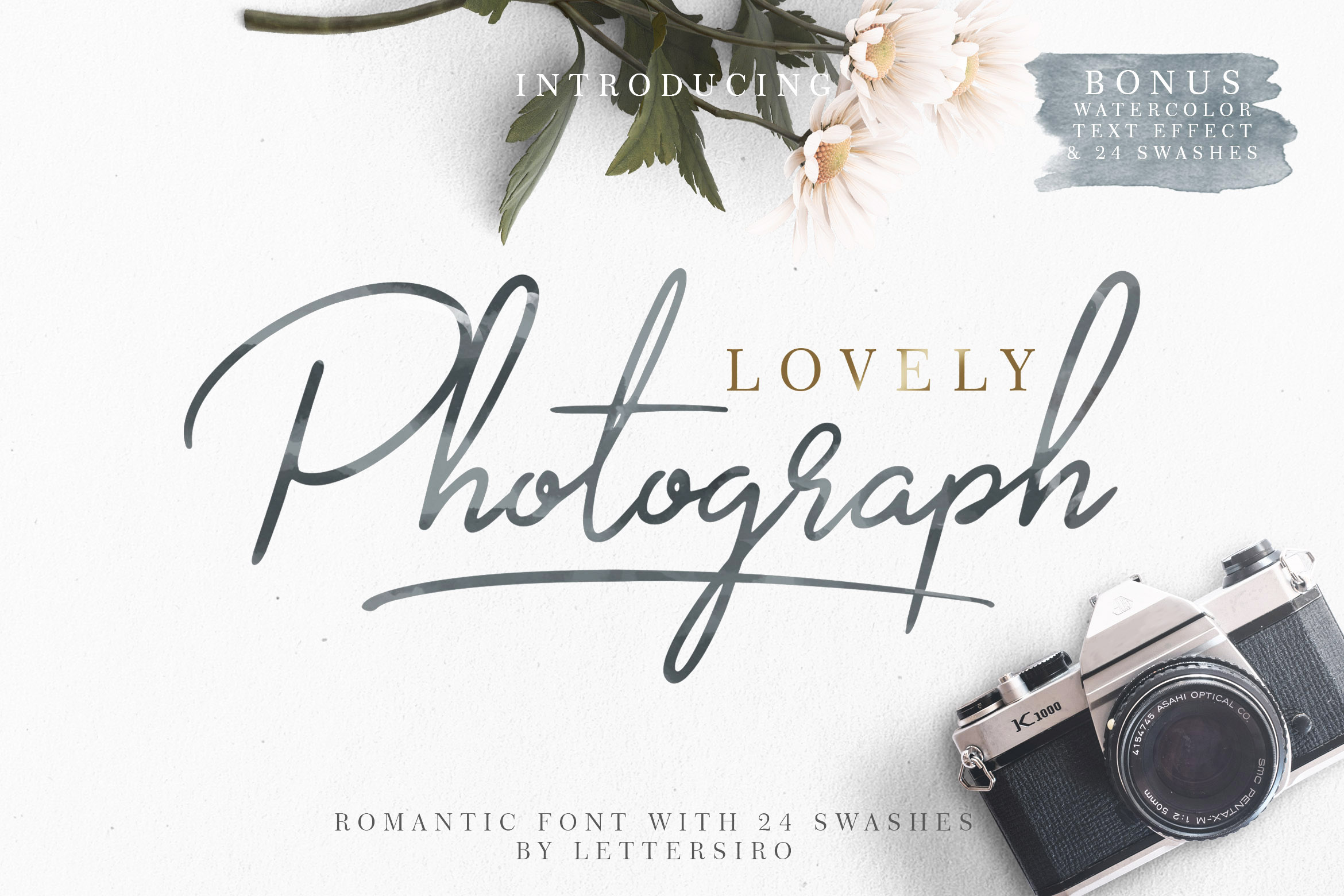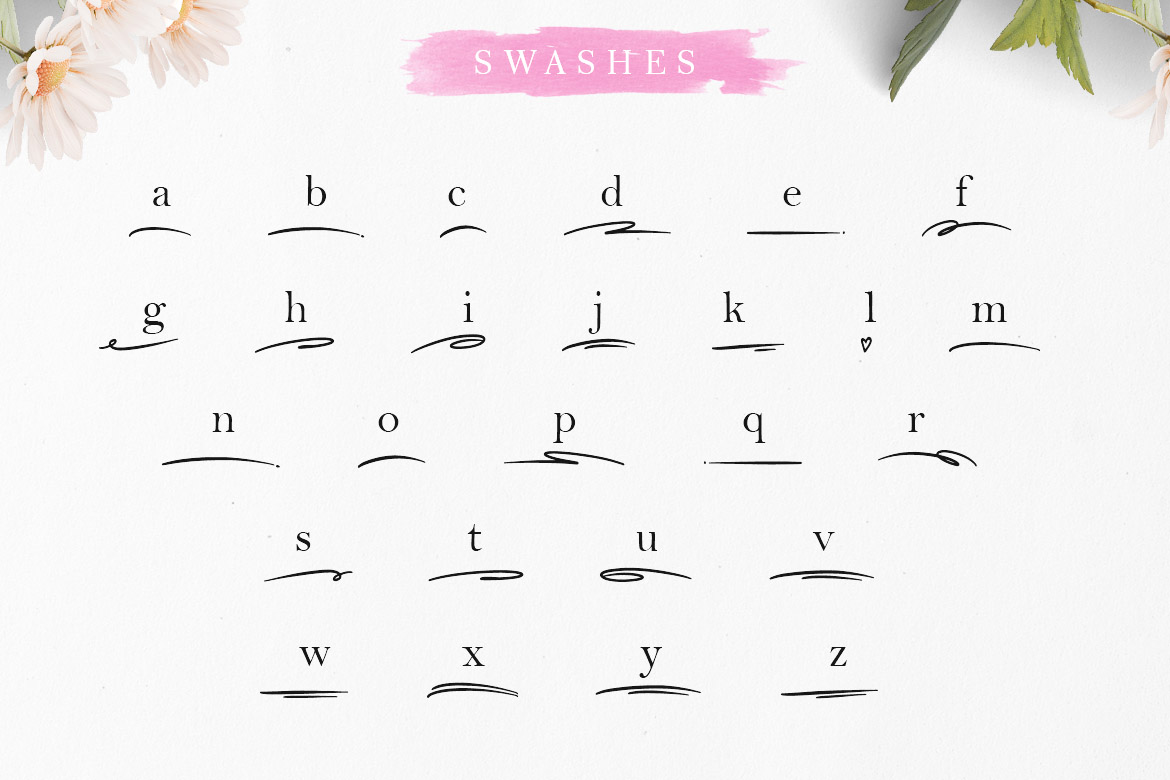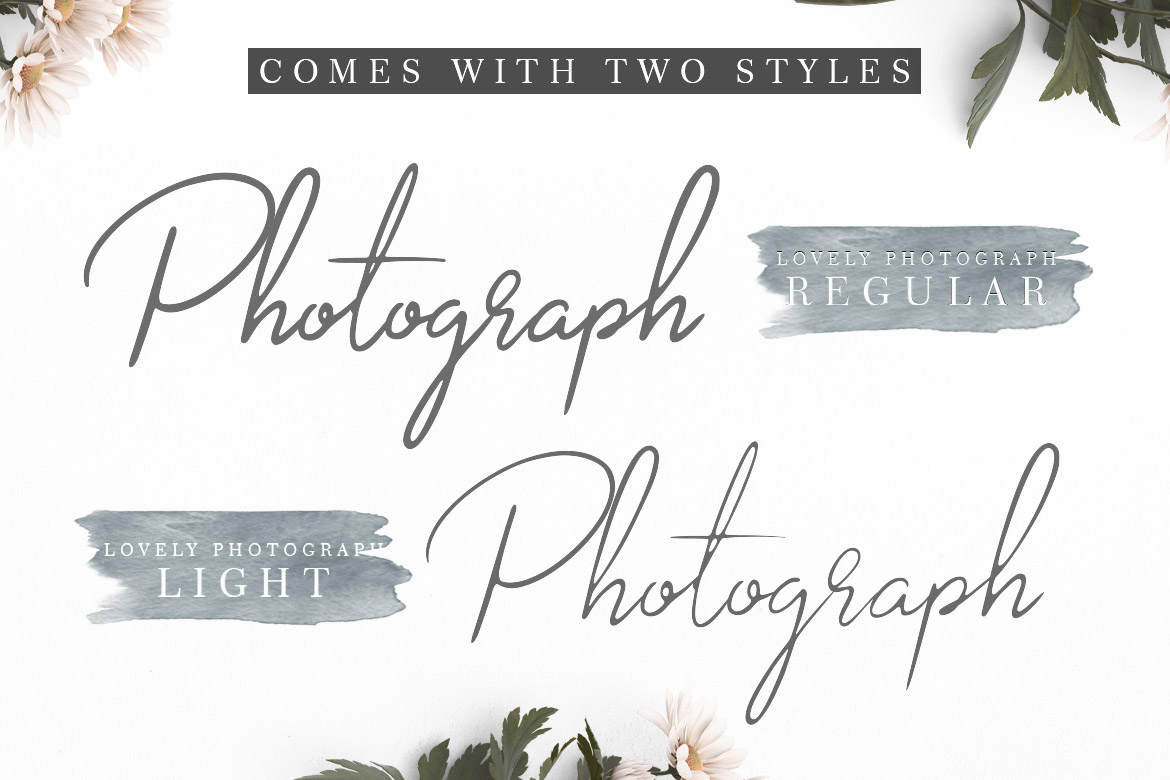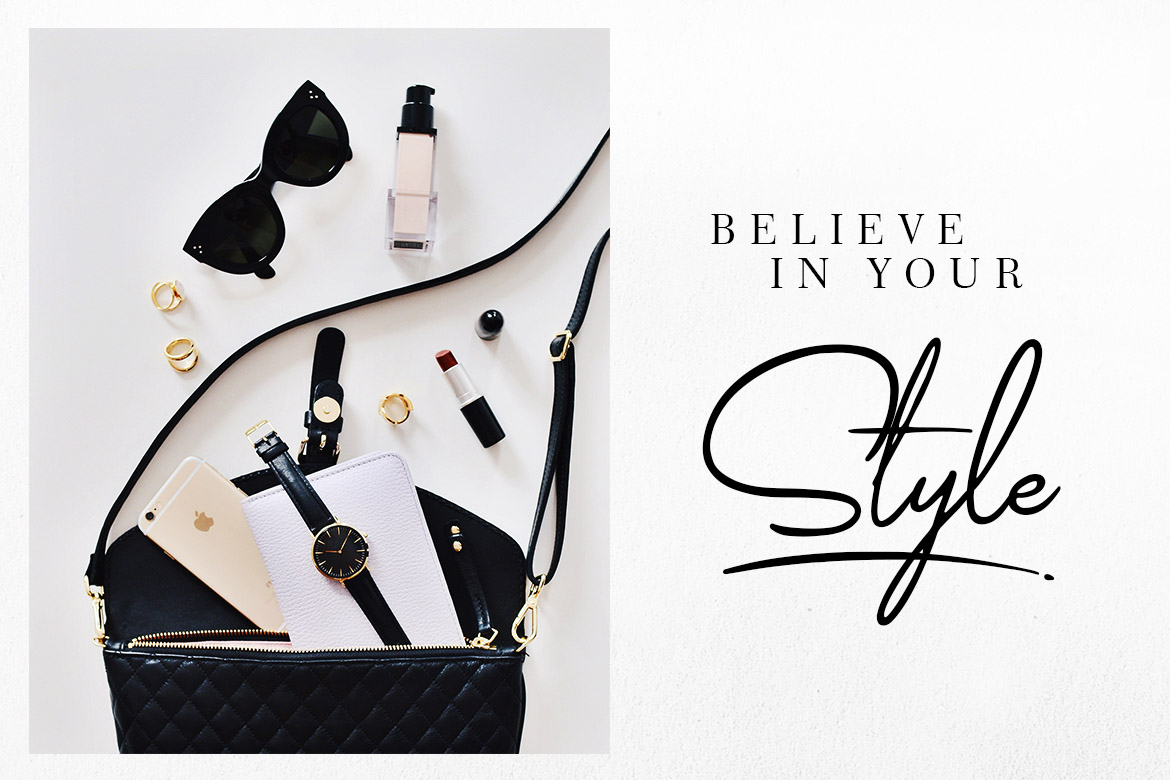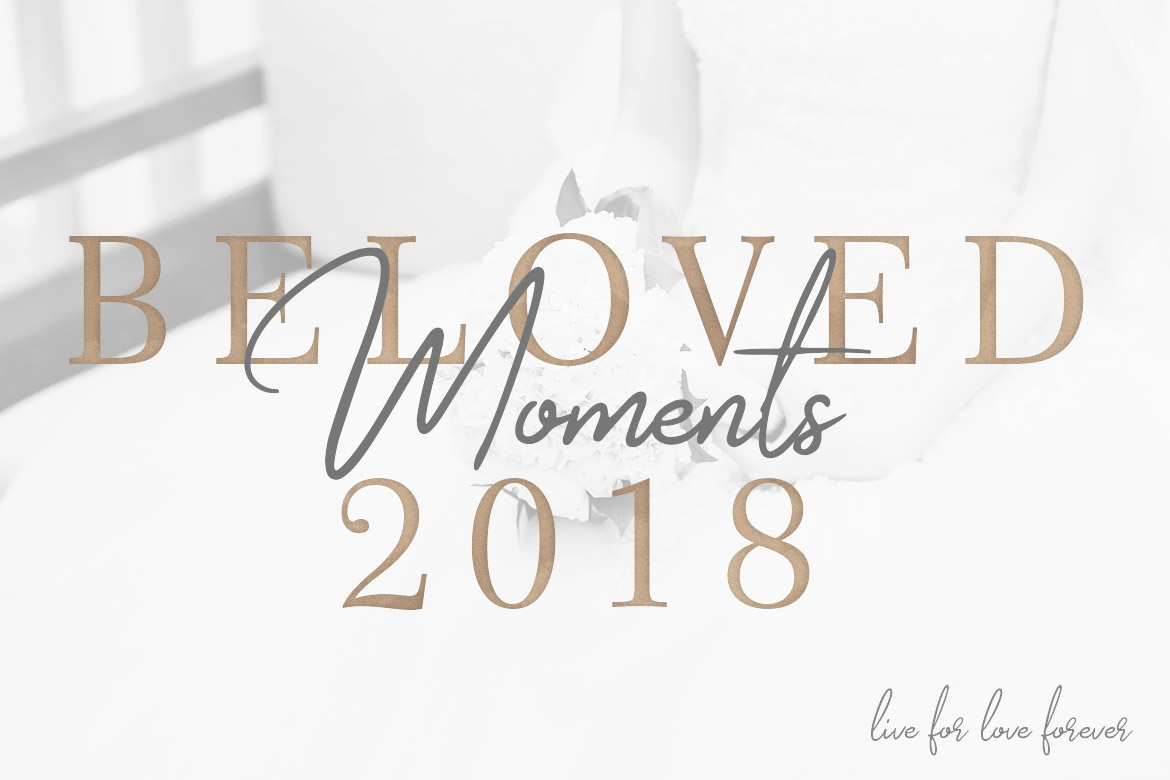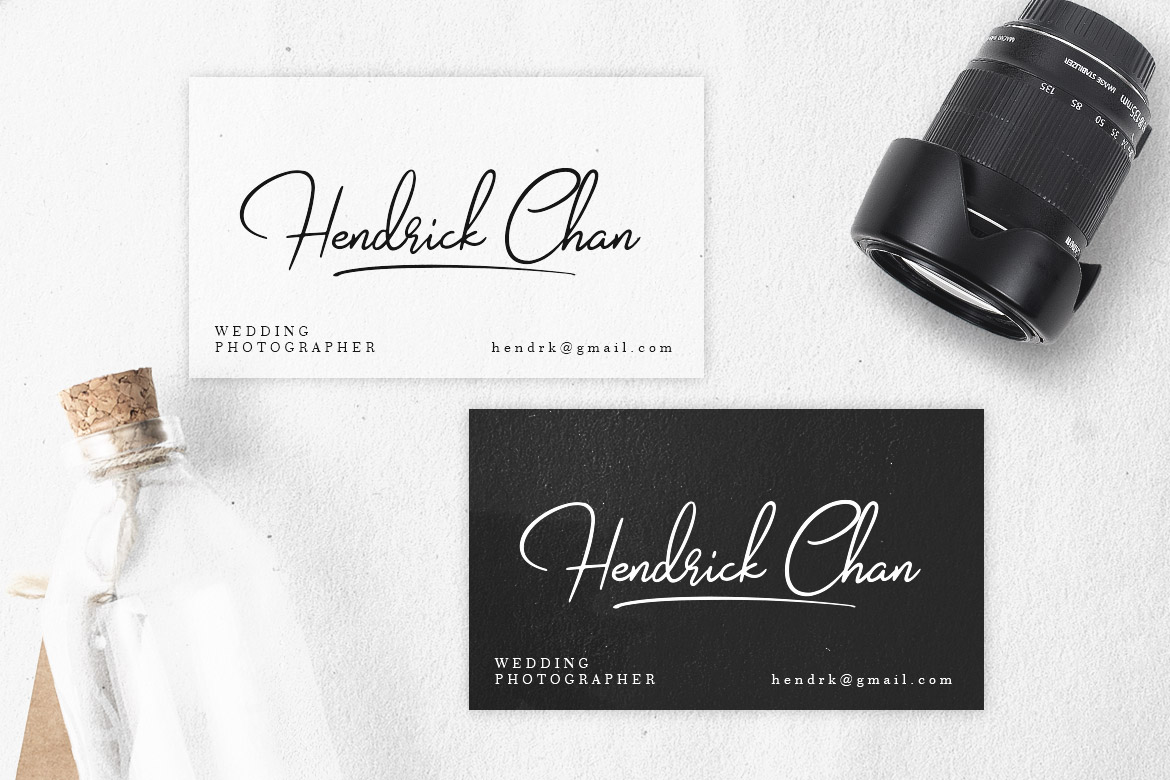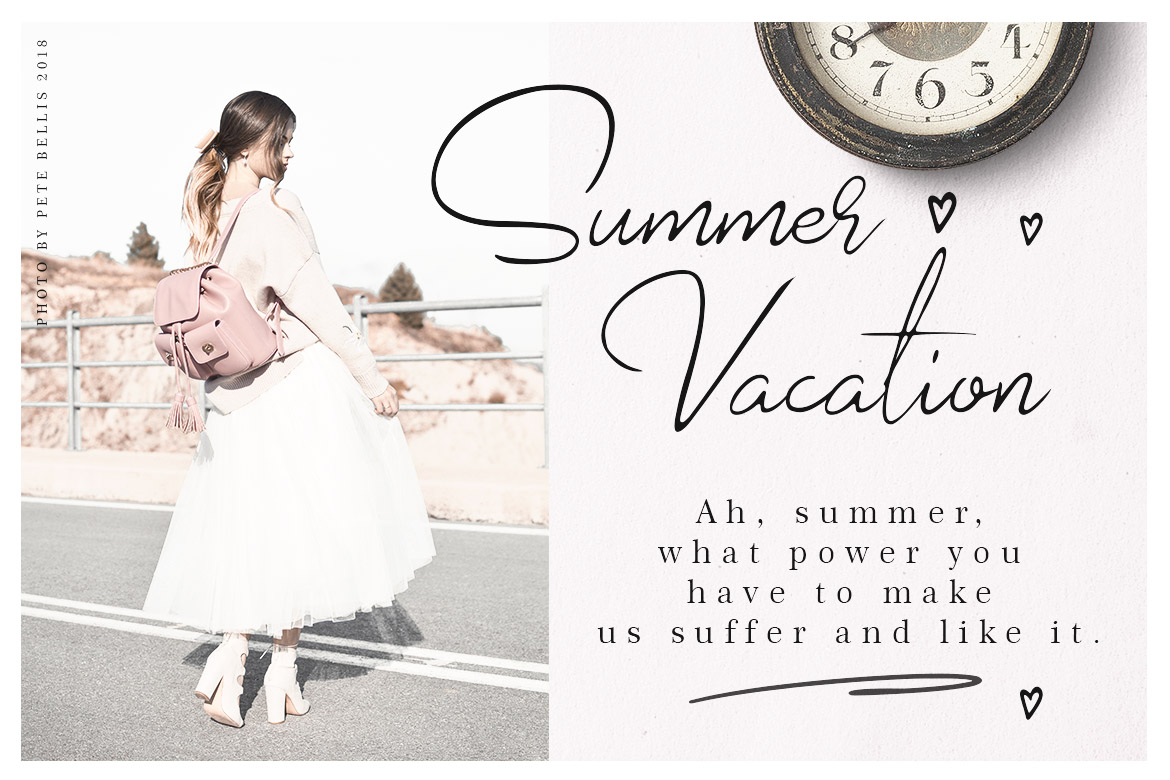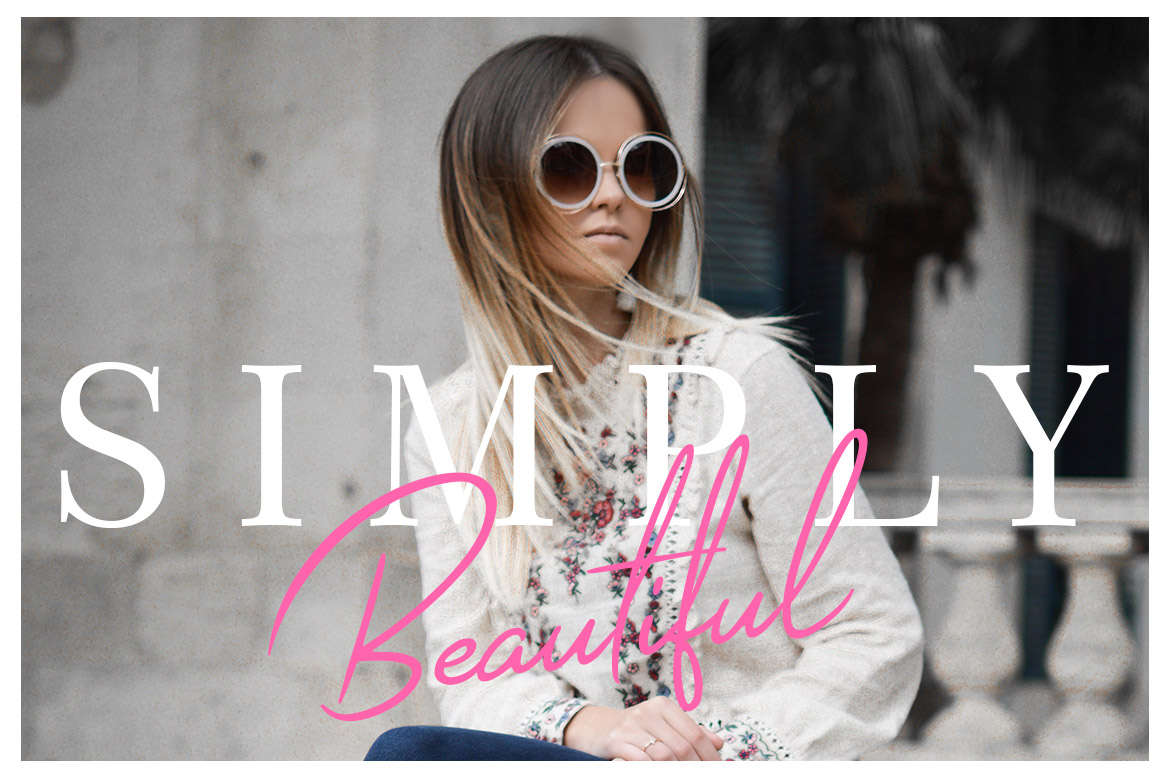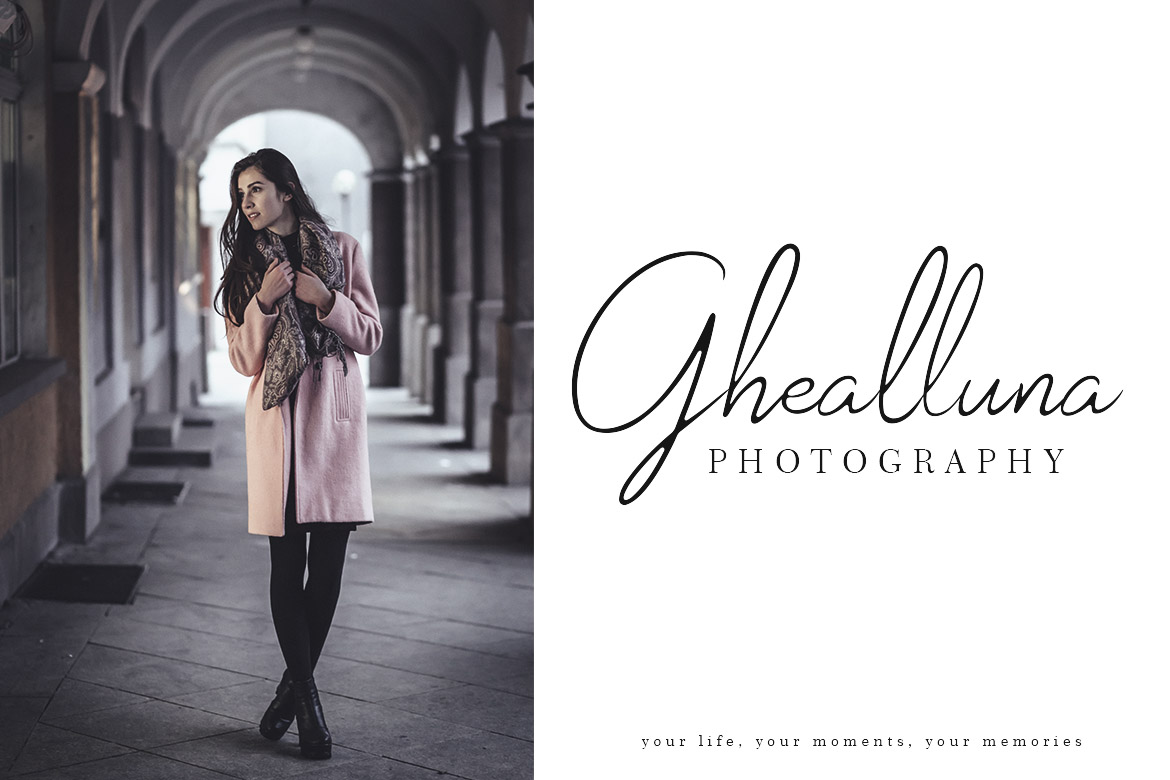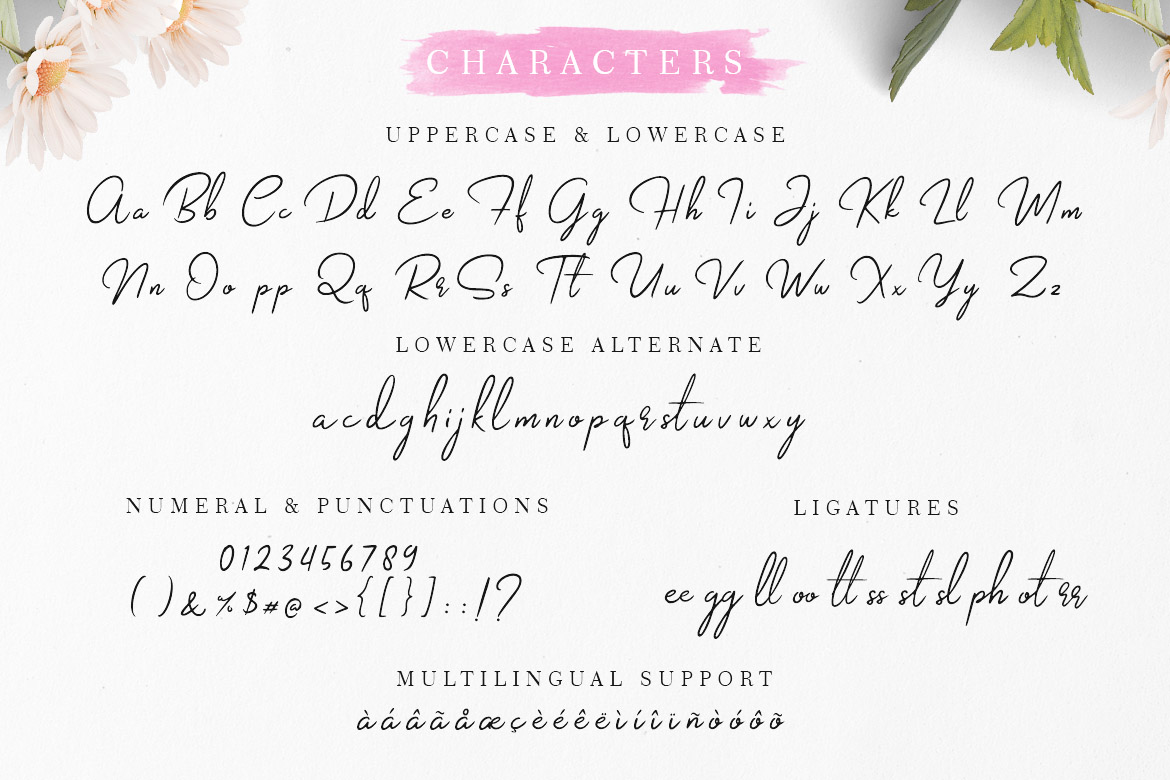
Lovely Photograph Font
About Lovely Photograph Font
Lovely Photograph is a fresh, modern hand-lettered font.
Created with attention to detail, this stunning font comes in 2 styles: Regular & Light. The Lovely Photograph font can be used for many purposes, including magazine headlines, signature designs, logos, business & apparel.
Included you will find a bonus font with 24 bonus swashes and a PSD (Photoshop File) with watercolor effect.